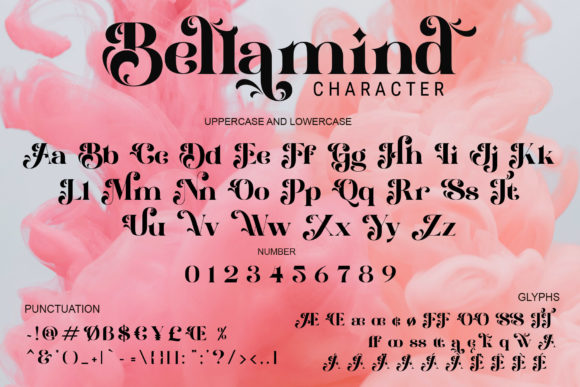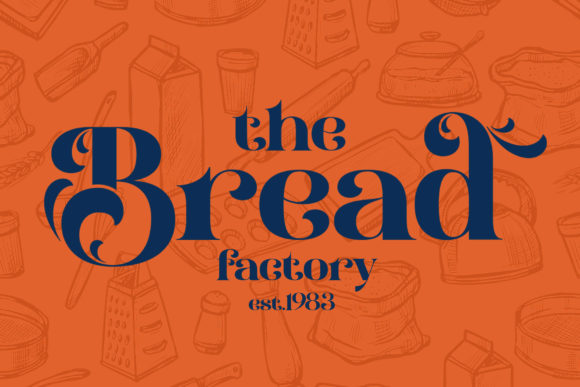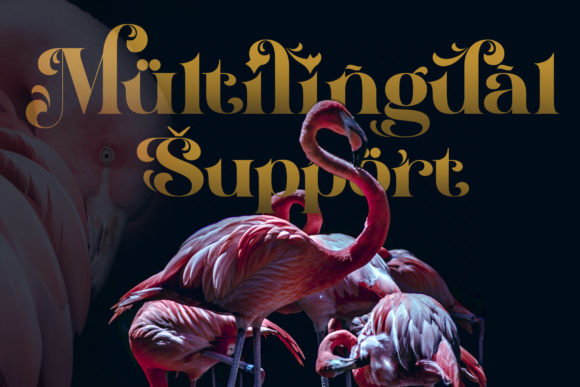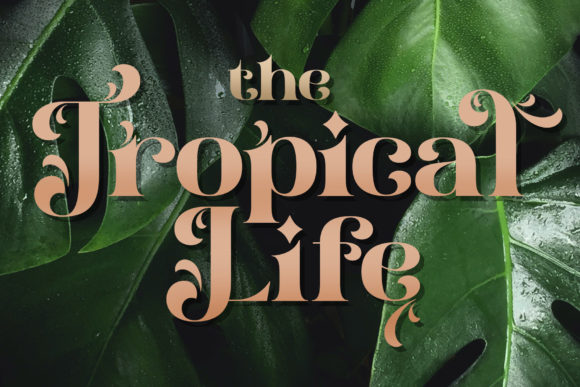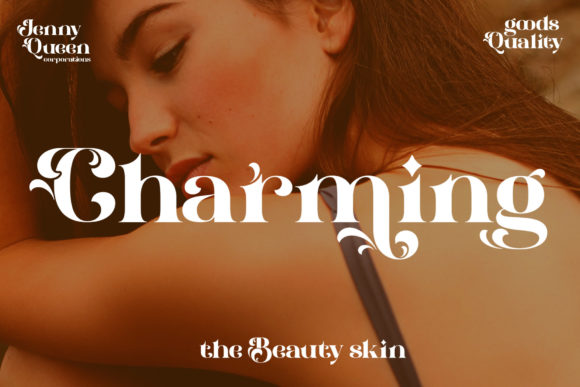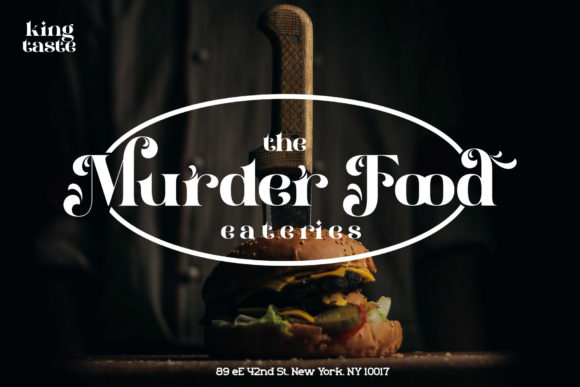
The Designer’s Delight: Uncovering the Charm of Bellamind Font
I’ll never forget the time I was working on a vintage-style poster for a client’s wedding invitation. I had all the design elements in place – the elegant graphics, the beautiful images, and the perfect color palette. But, I was stuck on one thing: the font. I wanted something that would transport my client back in time, something that exuded classic charm and sophistication. That’s when I stumbled upon Bellamind Font, and let me tell you, it was love at first sight! 💕
Bellamind Font has quickly become one of my go-to fonts for any project that requires a touch of elegance and whimsy. Here’s what I love about it:
- ✨ Highly detailed and chic design that’s perfect for creating stunning visual content
- ✅ Excellent for both digital and print projects, from wedding invitations to branding materials
- 💫 Supports multiple languages, making it a versatile choice for global designs
- 🎨 Comes with a range of OpenType features, glyphs, and stylistic alternates to enhance your designs
Of course, no font is perfect, and Bellamind has a few quirks to keep in mind:
- 🤔 Some users may find the font a bit too ornate for certain projects, such as body text or lengthy articles
- ⚠️ May require additional kerning adjustments for optimal spacing and readability
The Story Behind Bellamind Font
Bellamind Font was inspired by vintage posters from the early 20th century. Its designer, a typography enthusiast, sought to create a font that would evoke the elegance and sophistication of a bygone era. With its intricate details and refined lines, Bellamind Font is a true masterpiece of modern typography.
Q: What type of projects is Bellamind Font best suited for?
Bellamind Font is ideal for projects that require a touch of elegance and sophistication, such as wedding invitations, branding materials, and high-end advertising.
Q: Does Bellamind Font support multiple languages?
Yes, Bellamind Font supports multiple languages, making it a versatile choice for global designs.
Q: Can I use Bellamind Font in both digital and print projects?
Absolutely! Bellamind Font is optimized for both digital and print use, making it a great choice for a wide range of design applications.